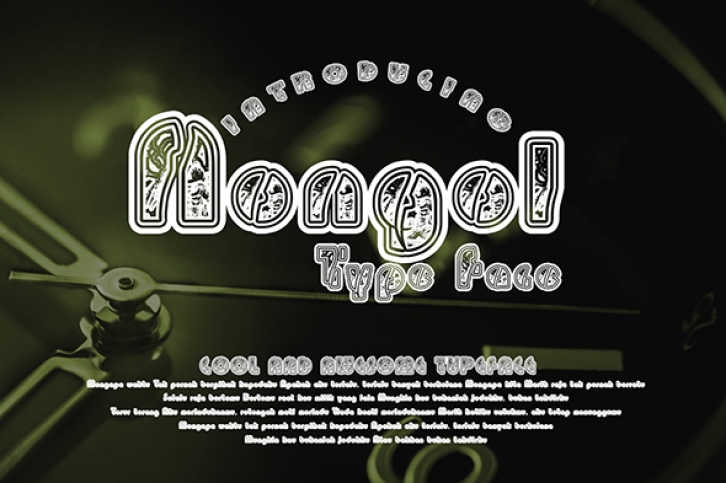
Nongol is a truly unique typeface! It can be used for various purposes such as: headlines, book covers, posters, invitations and much more! Perfect for those who like to be creative!